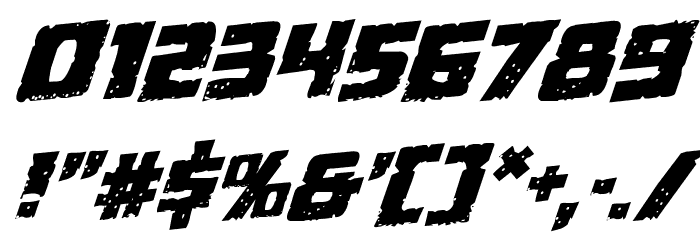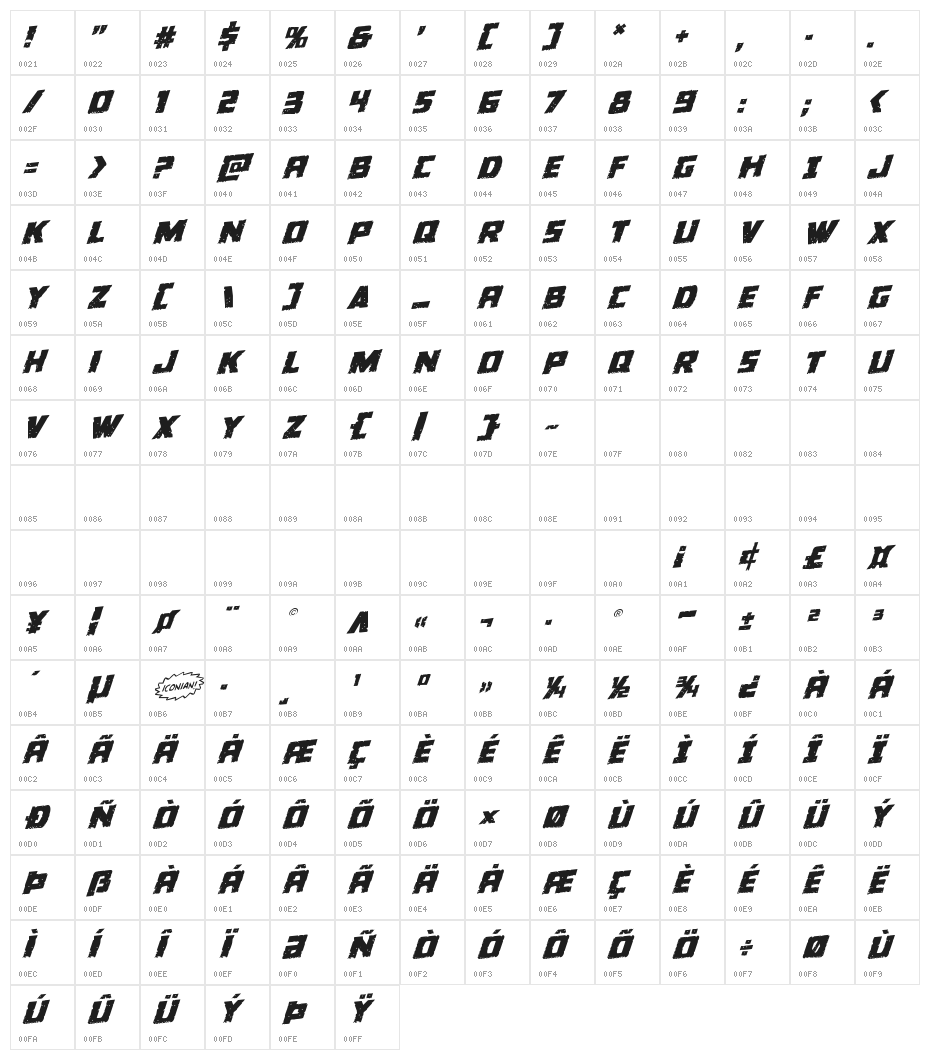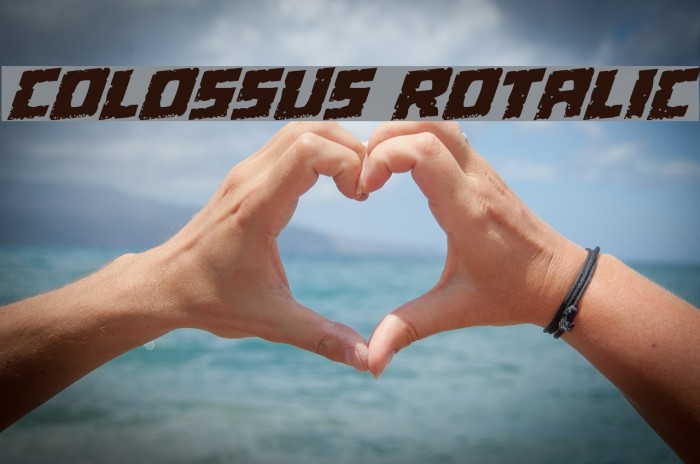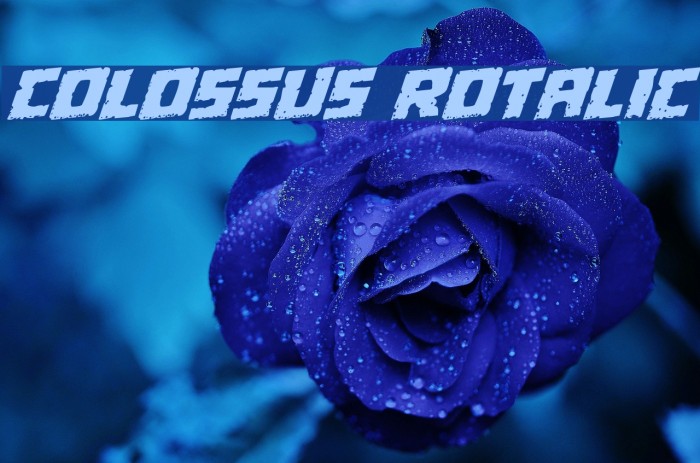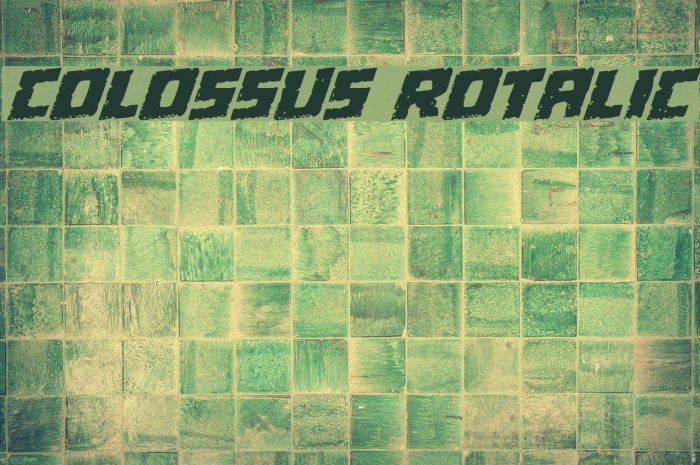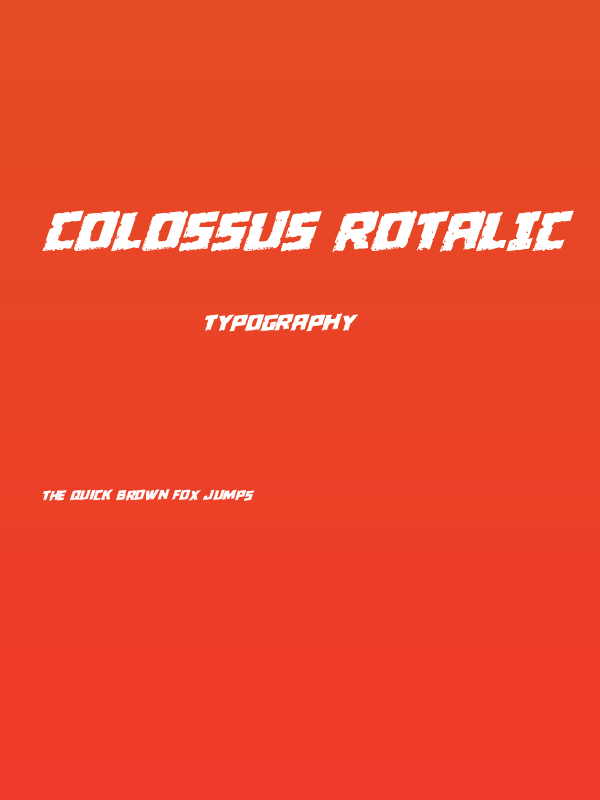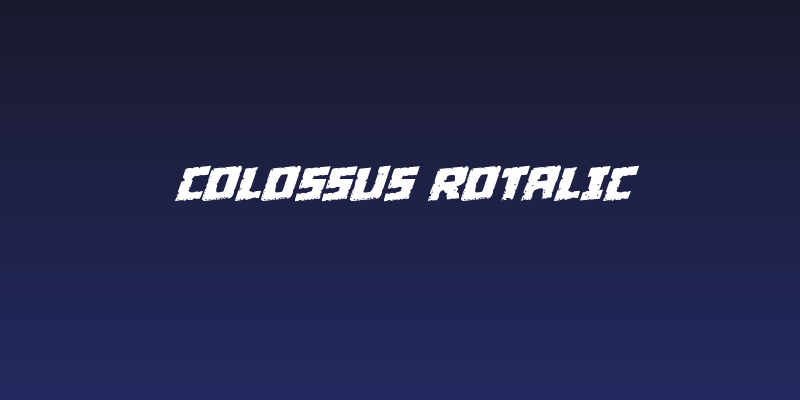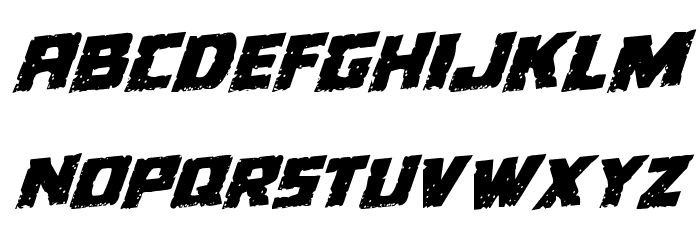
Colossus Rotalic Font
Colossus Rotalic Description
This font features a bold and dynamic style with a distressed, textured appearance that gives it a rugged and impactful look. The characters are slanted, adding a sense of motion and energy. The uppercase and lowercase letters are consistent in their boldness, with sharp angles and a slightly condensed form. Numbers and special characters maintain the same distressed texture, ensuring uniformity across all glyphs. The font's design is reminiscent of vintage or retro themes, making it suitable for projects that require a strong, eye-catching typeface.